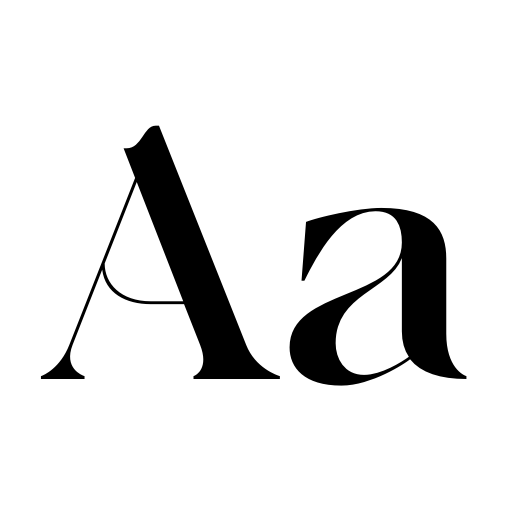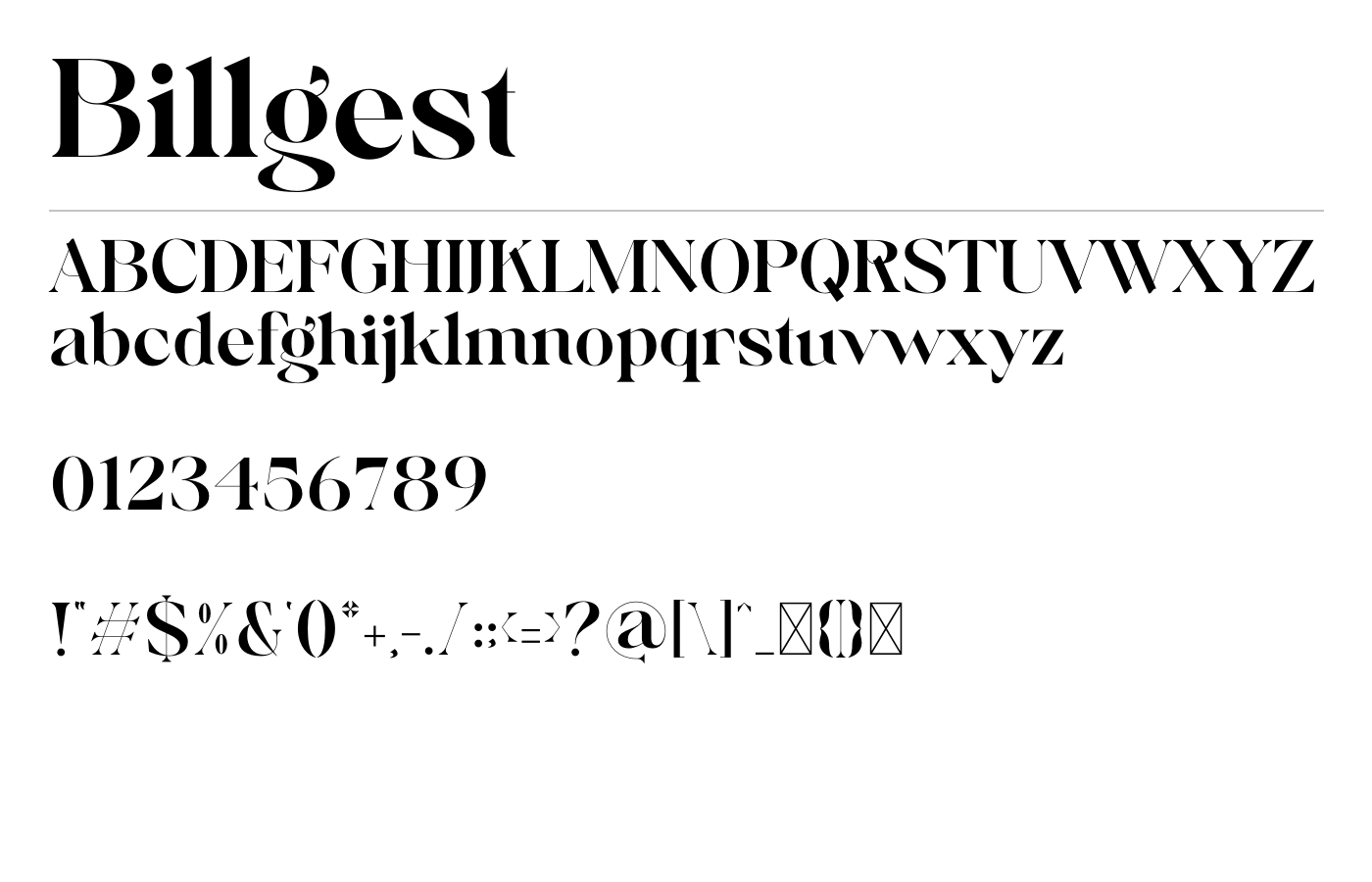
Billgest is a stylish serif font characterized by high contrast between thick and thin strokes, sharp angular serifs, and elegant letterforms that exude sophistication. Its refined and modern look makes it ideal for luxury branding, editorial headlines, and high-end packaging where a strong, classy impression is desired.
Billgest Font
About Billgest Font
| Font family | Billgest Font |
| Designer | Brandsemut |